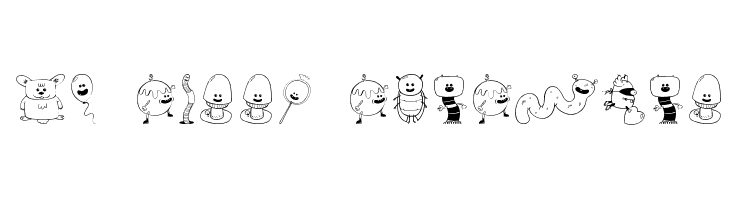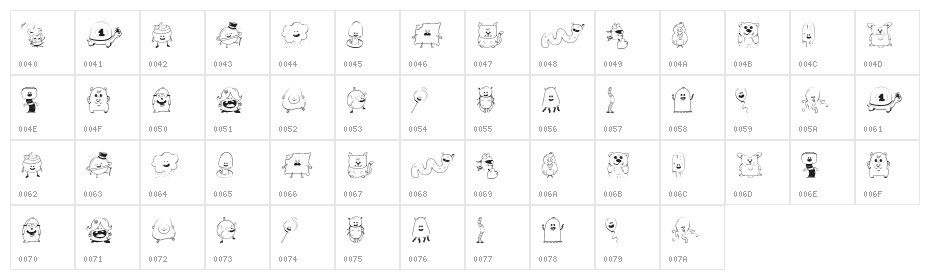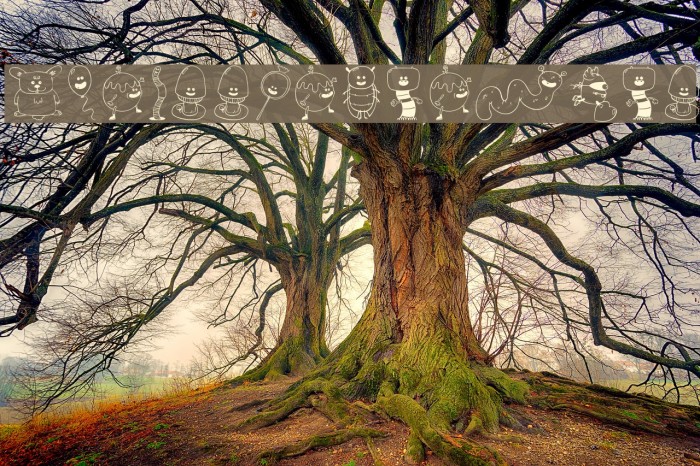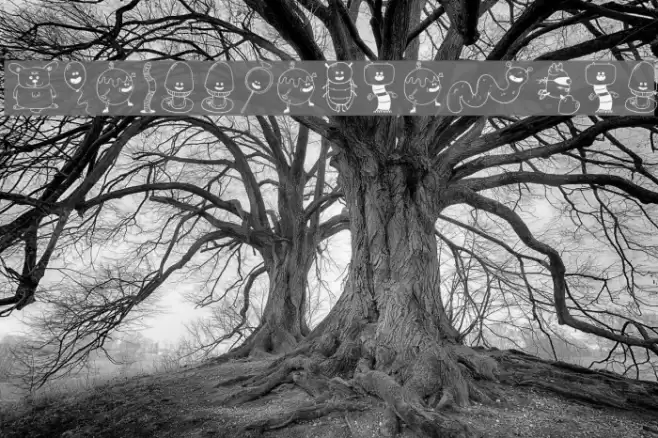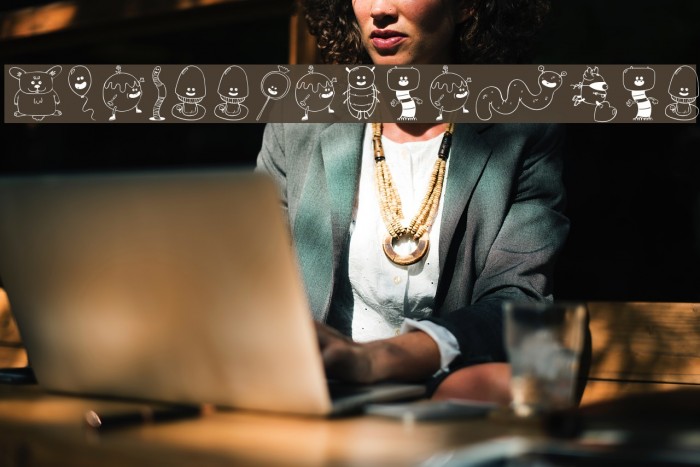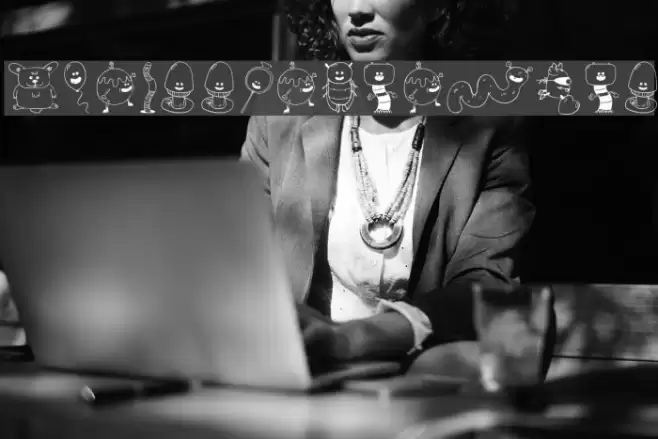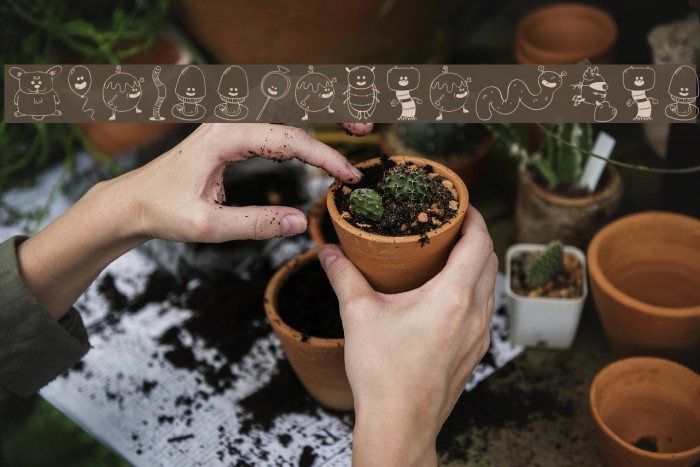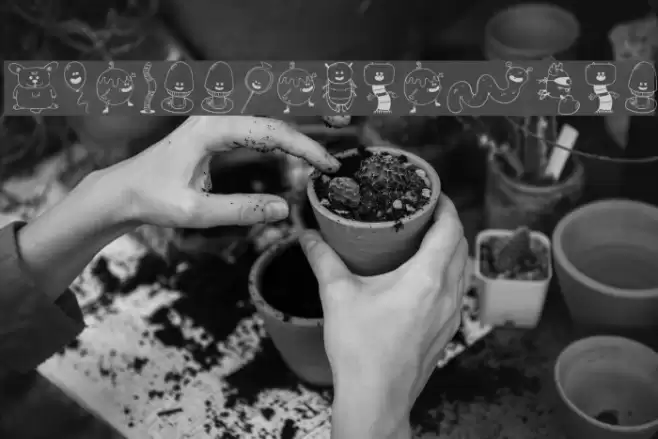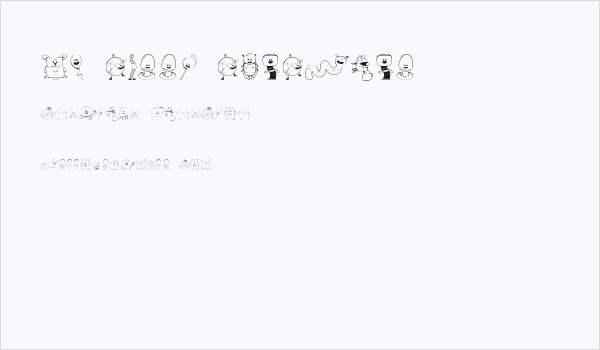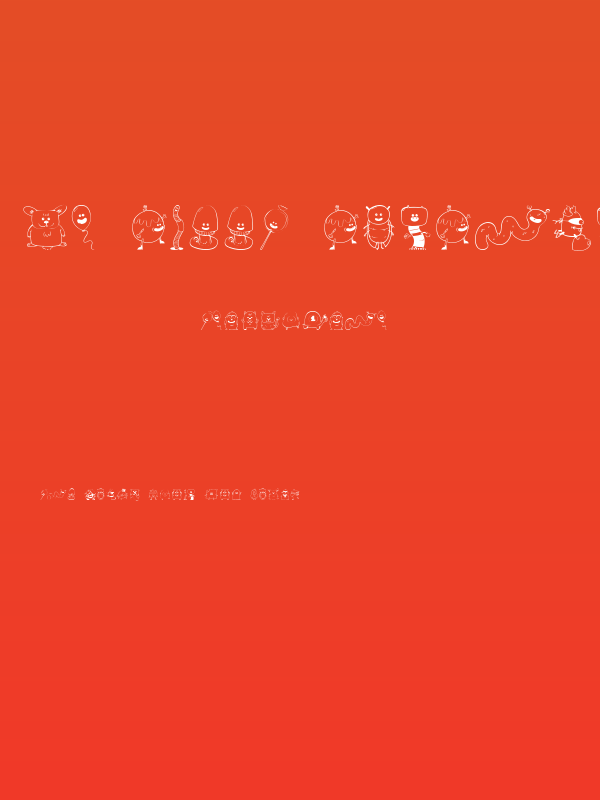
My Sweet Sunshine Font
This whimsical and playful font features a series of charming and quirky characters, each with its own unique personality. The design is highly decorative, with each letter represented by a delightful cartoon-like figure. The characters are expressive and full of life, making them perfect for projects that require a fun and engaging visual element. The style is highly illustrative, with a focus on creativity and imagination. This font is not suitable for traditional text but excels in adding a touch of humor and whimsy to any design.
A playful and decorative font featuring unique cartoon characters.
• Proposed Projects: Ideal for children's books, playful posters, greeting cards, and any project needing a whimsical touch.
• Category: Decorative/Display
• Width: Normal
• Character Spacing: Normal
• Contrast: Low
• Overall Style: Decorative
• Use Case: Logos, Posters, Children's materials